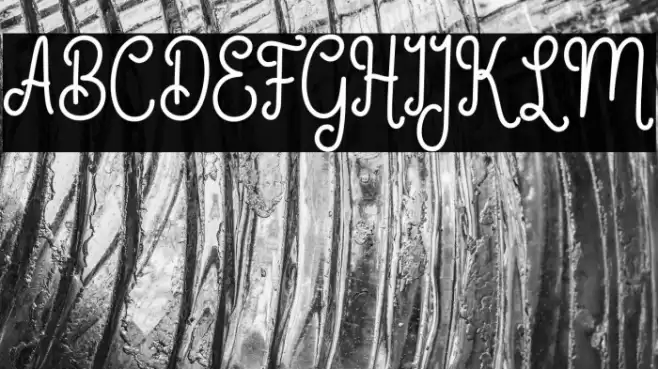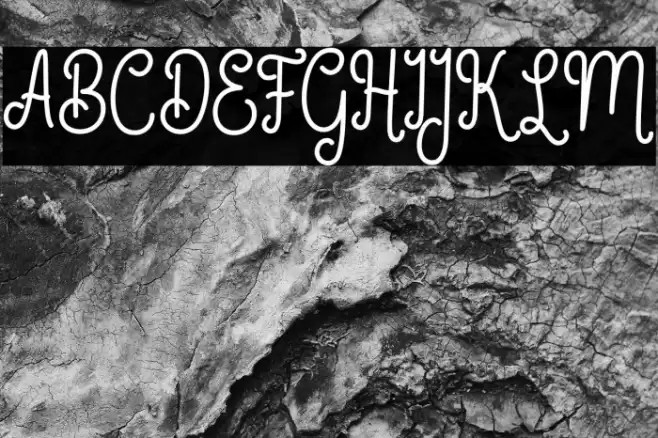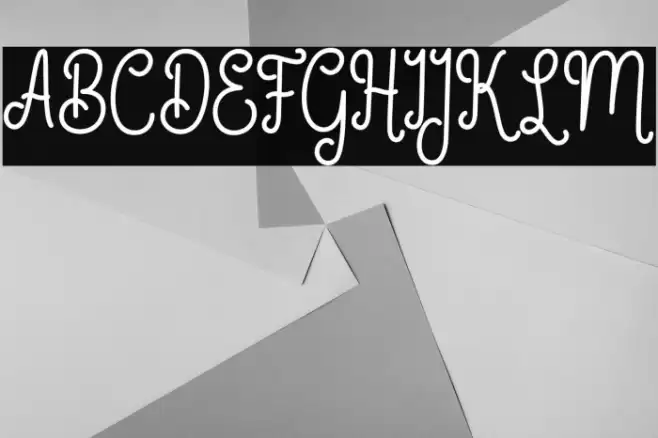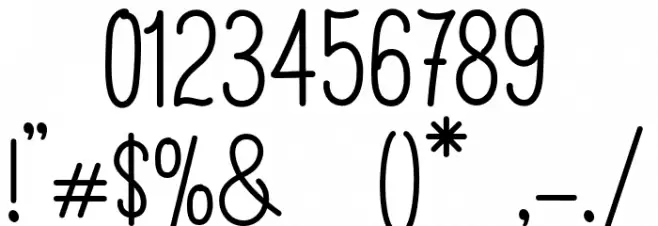
GermalyScriptDEMO-Regular Font
GermalyScriptDEMO-Regular Description
This font features a playful and elegant script style with a handwritten appearance. The letters are connected in a fluid manner, creating a sense of movement and continuity. The uppercase letters are tall and slender, while the lowercase letters maintain a consistent flow with rounded forms. The numbers are clear and legible, matching the overall style of the alphabet. Special characters are creatively integrated, maintaining the whimsical and artistic feel. This font is perfect for projects that require a personal touch, such as invitations, greeting cards, and creative branding.
A playful, elegant script font with a handwritten style from Uncategorized fonts.
- Proposed Projects: Ideal for invitations, greeting cards, personal branding, and creative projects.